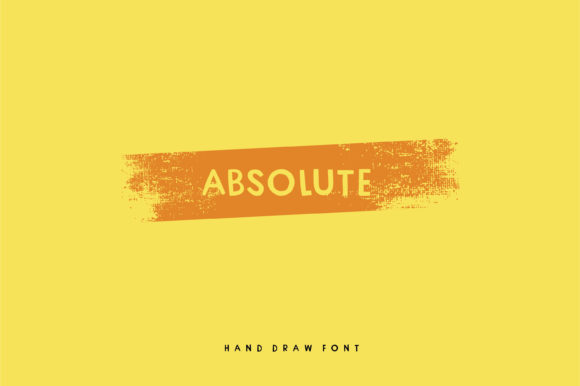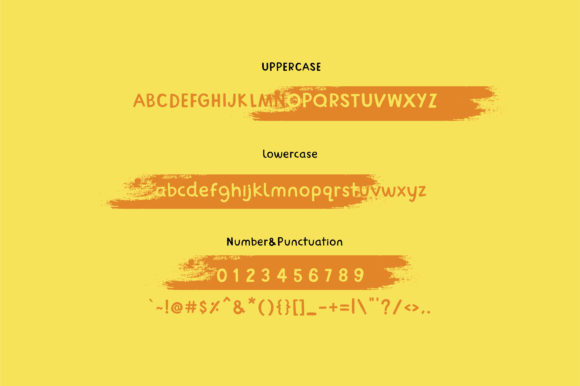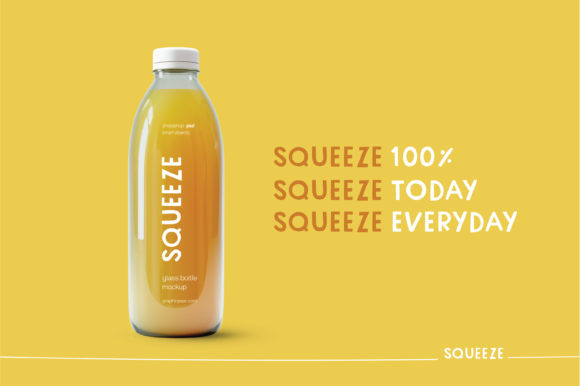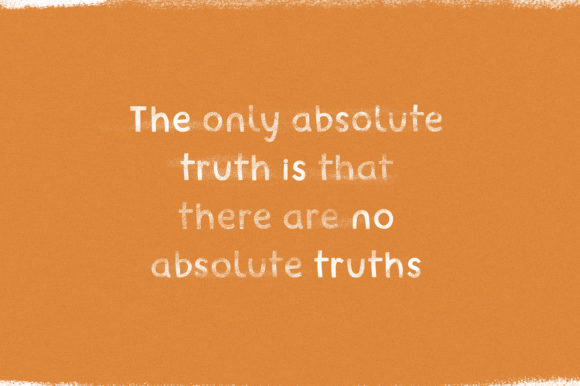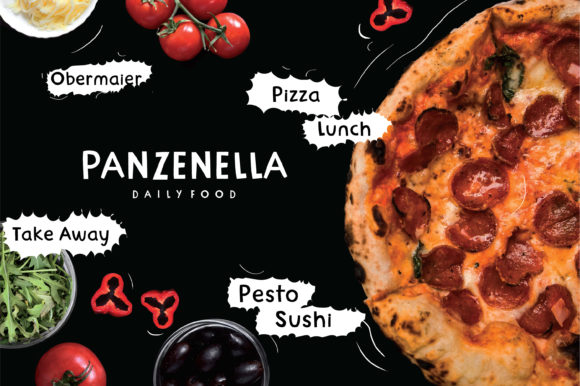
Absolute Font
About Absolute Font
Absolute is a casual handwritten font, with a natural and unique flow. It will give a friendly and fresh look to each of your designs!